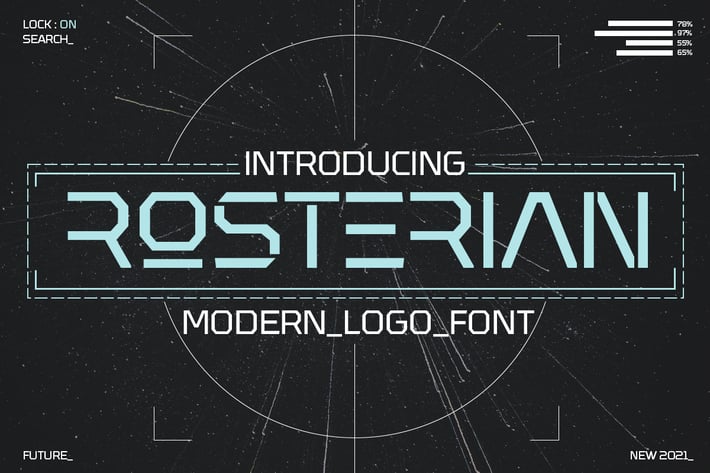
Rosterian Futuristic Logo Font
Rosterian Futuristic Logotype Font, comes with stencil style and perfect for futuristic font theme, also great for spaceship universe design resources.